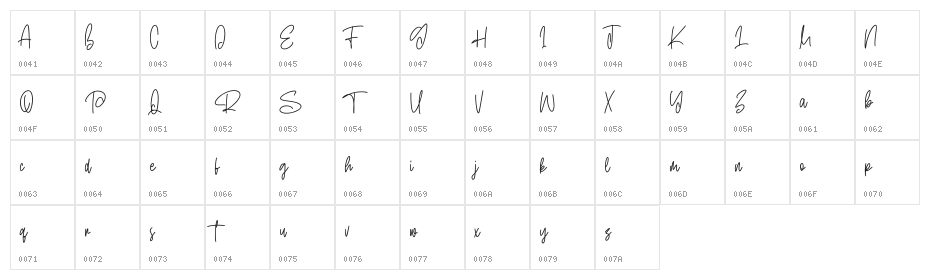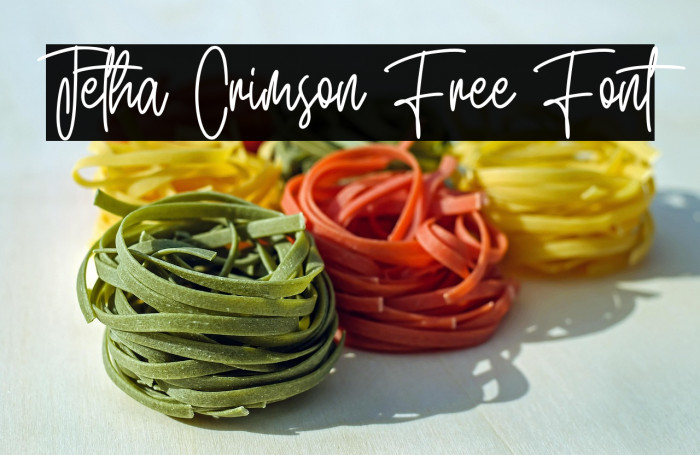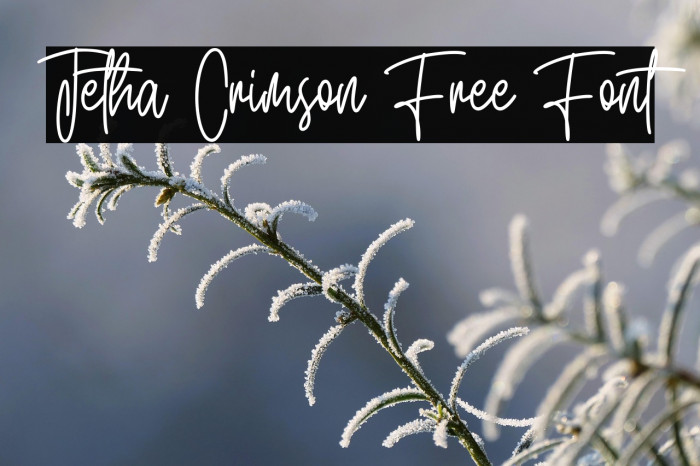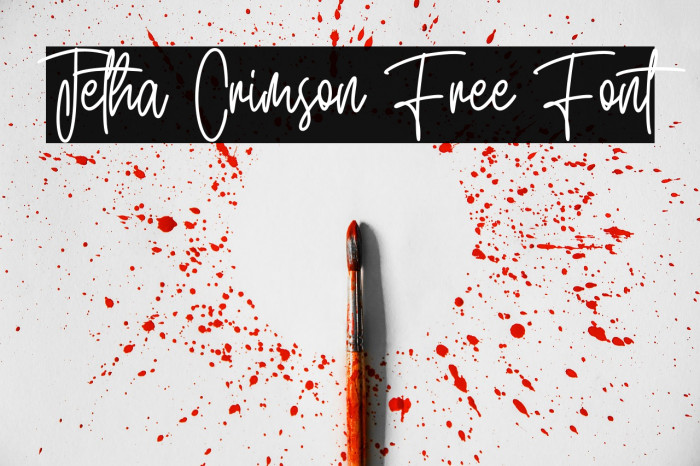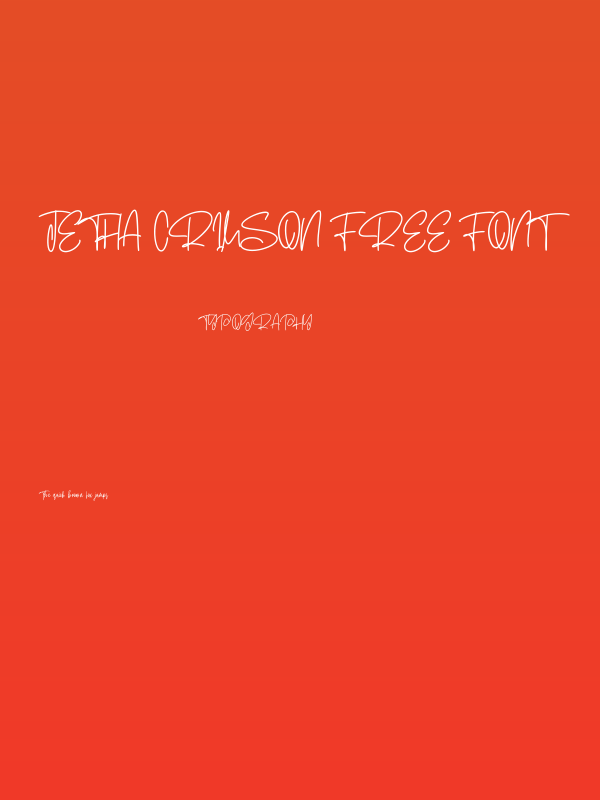
Jetha Crimson Free Font Font
Jetha Crimson Free Font Description
This font features a dynamic and expressive handwritten style, characterized by its fluid and flowing letterforms. The uppercase letters are bold and prominent, with a playful yet elegant flair, while the lowercase letters maintain a consistent rhythm and smooth curves. The font exhibits a natural, organic feel, with varying stroke widths that add a sense of movement and energy. The overall design is both modern and artistic, making it suitable for creative projects that require a personal touch.
| Overall Style | Modern, Artistic |
| Proposed Projects | Ideal for branding, invitations, greeting cards, and creative social media graphics. |